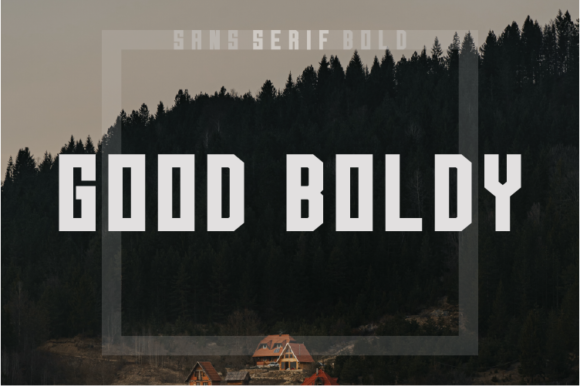
Introducing Good Boldy Font: The Ultimate Sans Serif for Designers
In the world of typography, a good font can make all the difference in a design project. For designers and crafters, finding the perfect font that combines style, readability, and versatility can be a daunting task. However, look no further than Good Boldy Font, a bold sans serif font that is carefully handcrafted to become a true favorite among designers.
The Charm of Good Boldy Font
Good Boldy Font boasts a casual charm that makes it appear wonderfully down-to-earth and approachable. Its bold and sans serif design ensures that it stands out in any context, whether it’s being used on busy backgrounds or as a standalone headline. The font’s unique character makes it perfect for designers who want to add a touch of personality to their work.
Readability and Versatility
One of the key features of Good Boldy Font is its exceptional readability. The font is designed to be clear and concise, making it easy to read in various sizes and resolutions. Whether you’re using it for a website, print material, or social media graphics, Good Boldy Font ensures that your message is conveyed effectively. Additionally, its versatility makes it suitable for a wide range of design projects, from branding and advertising to packaging and signage.
Standout Features of Good Boldy Font
- Bold and Sans Serif Design: Good Boldy Font features a bold and sans serif design that makes it perfect for headlines, titles, and emphasis.
- Casual Charm: The font’s casual charm makes it appear down-to-earth and approachable, adding a touch of personality to your design.
- Exceptional Readability: Good Boldy Font is designed to be clear and concise, making it easy to read in various sizes and resolutions.
- Versatility: The font is suitable for a wide range of design projects, from branding and advertising to packaging and signage.
Why Choose Good Boldy Font?
With so many fonts available, why choose Good Boldy Font? Here are a few reasons why designers and crafters love this font:
- Unique Character: Good Boldy Font has a unique character that sets it apart from other fonts.
- Ease of Use: The font is easy to use and pairs well with a variety of other fonts.
- High-Quality Design: Good Boldy Font is carefully handcrafted to ensure a high-quality design that looks great in any context.
How to Use Good Boldy Font
Good Boldy Font is perfect for a wide range of design projects, including:
- Branding and Advertising: Use Good Boldy Font to create bold and eye-catching headlines and titles.
- Packaging and Signage: The font’s bold design makes it perfect for packaging and signage.
- Web Design: Good Boldy Font is optimized for web use and looks great on a variety of devices.
- Print Materials: Use the font for print materials such as brochures, flyers, and posters.
In conclusion, Good Boldy Font is a bold sans serif font that is carefully handcrafted to become a true favorite among designers. Its casual charm, exceptional readability, and versatility make it perfect for a wide range of design projects. Whether you’re a designer or crafter, Good Boldy Font is a great addition to your font library.